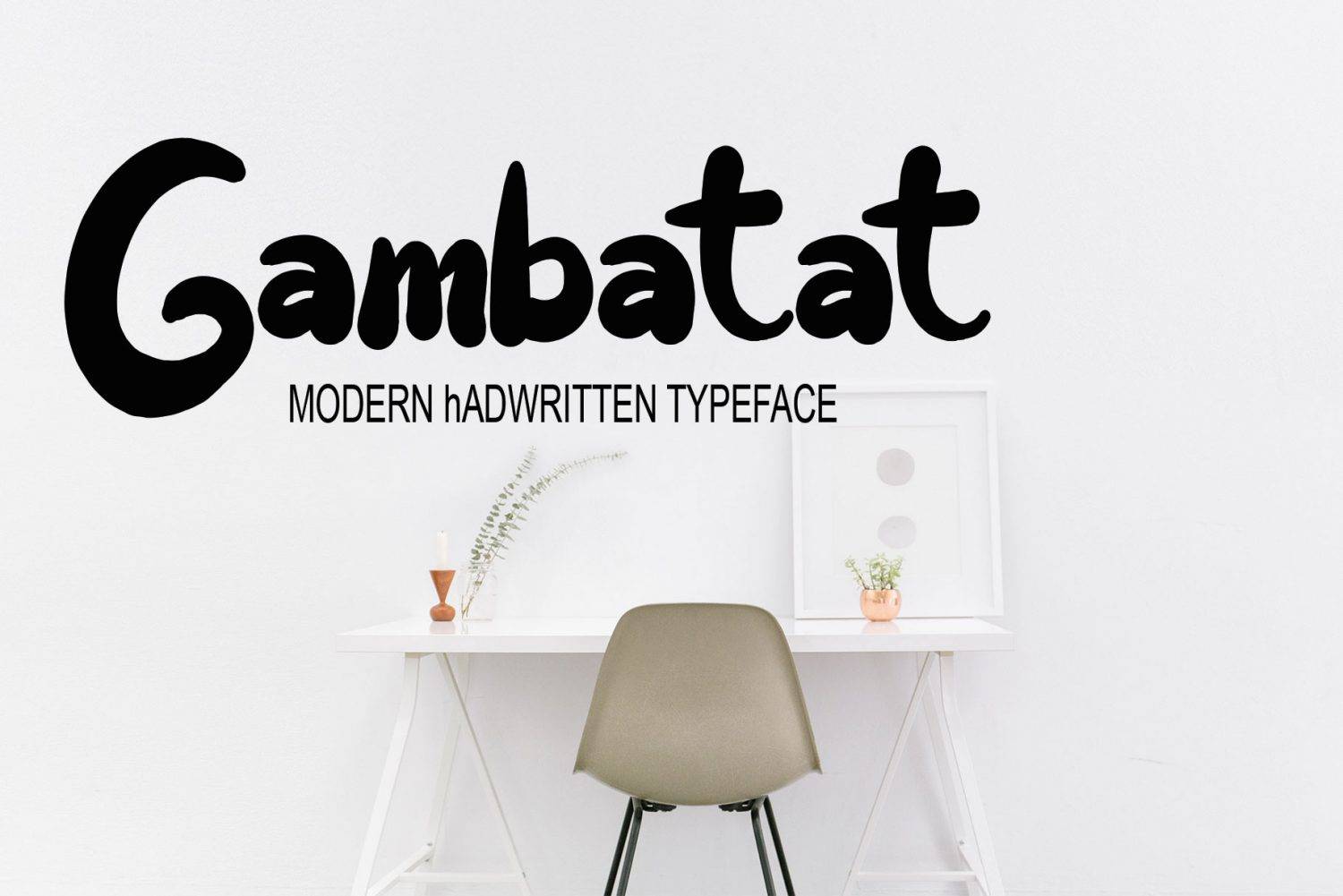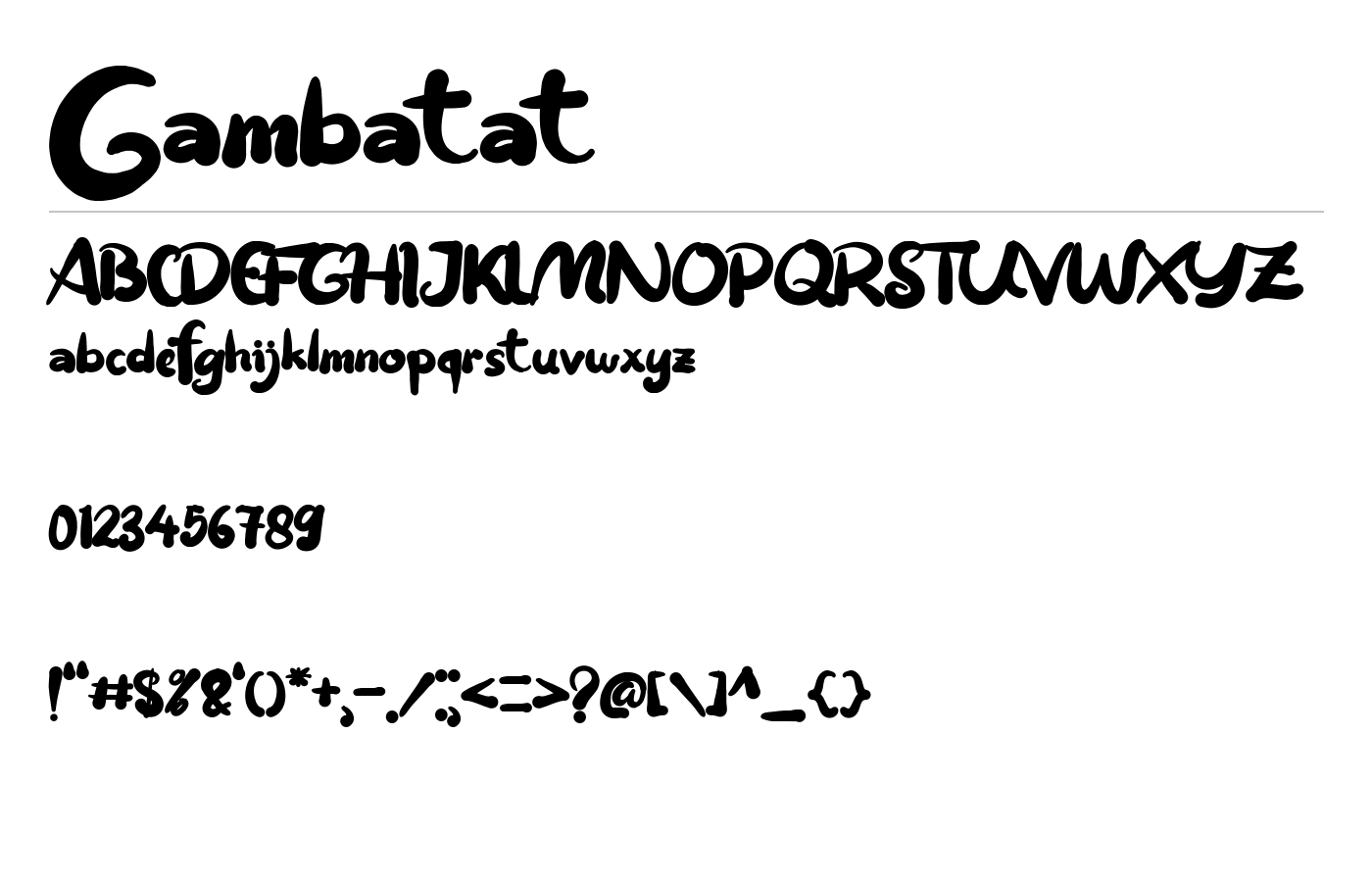
Gambatat is a playful, bold handwritten font with a lively character and organic shapes that bring warmth and personality to any design. Its irregular strokes and smooth curves make it perfect for fun, creative branding, posters, and packaging that want to convey friendliness and approachability. This font works best in headlines or display text where its unique style can truly stand out and engage viewers.
Gambatat Font
About Gambatat Font